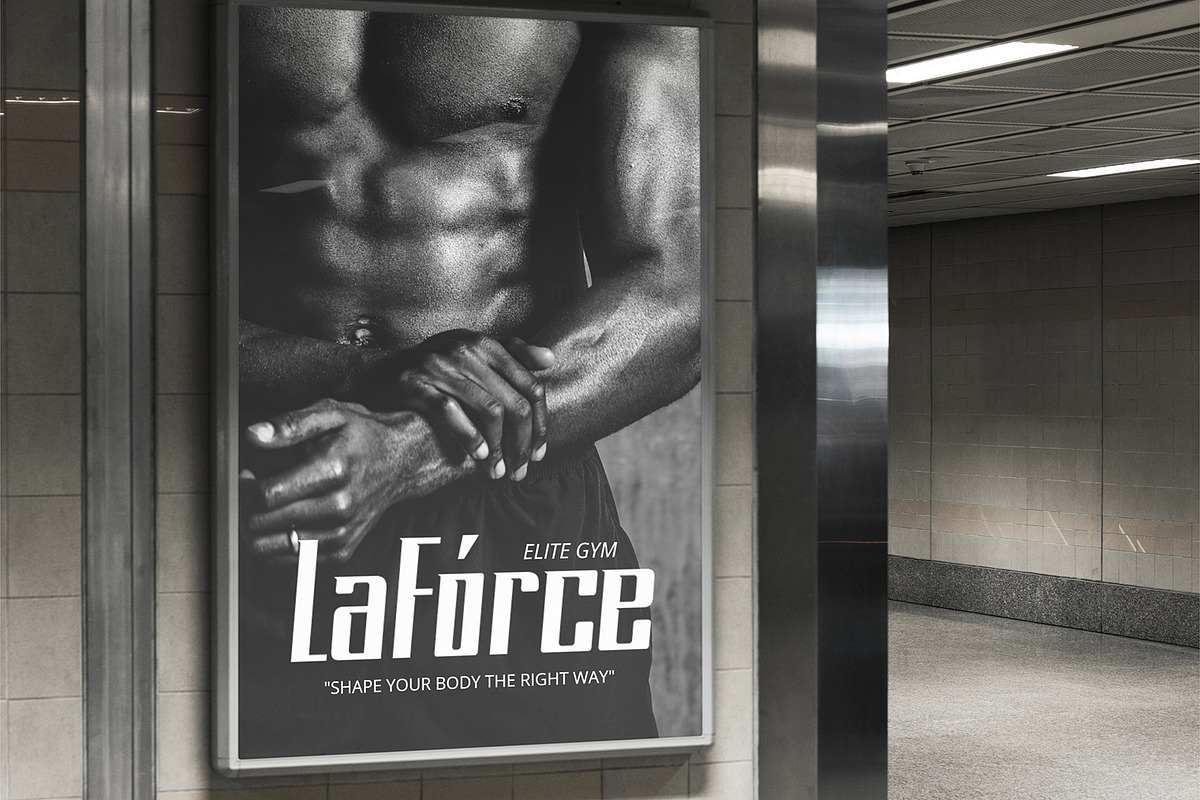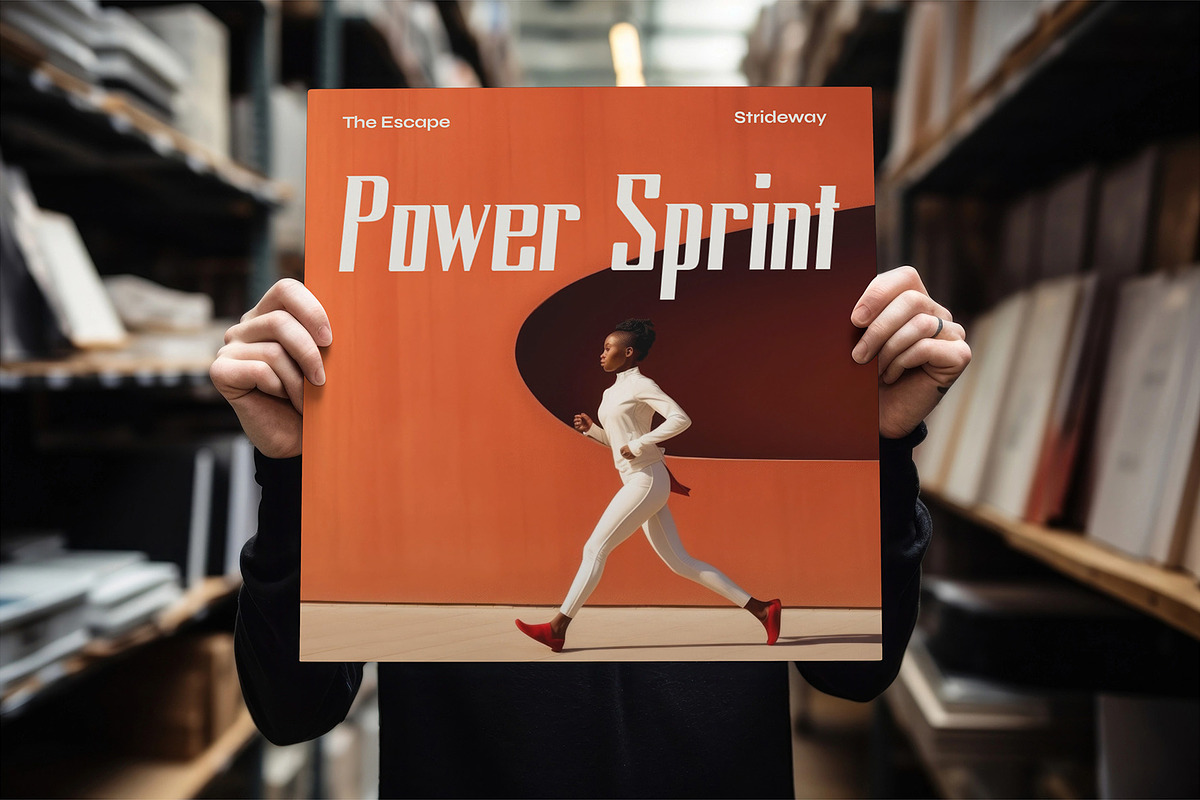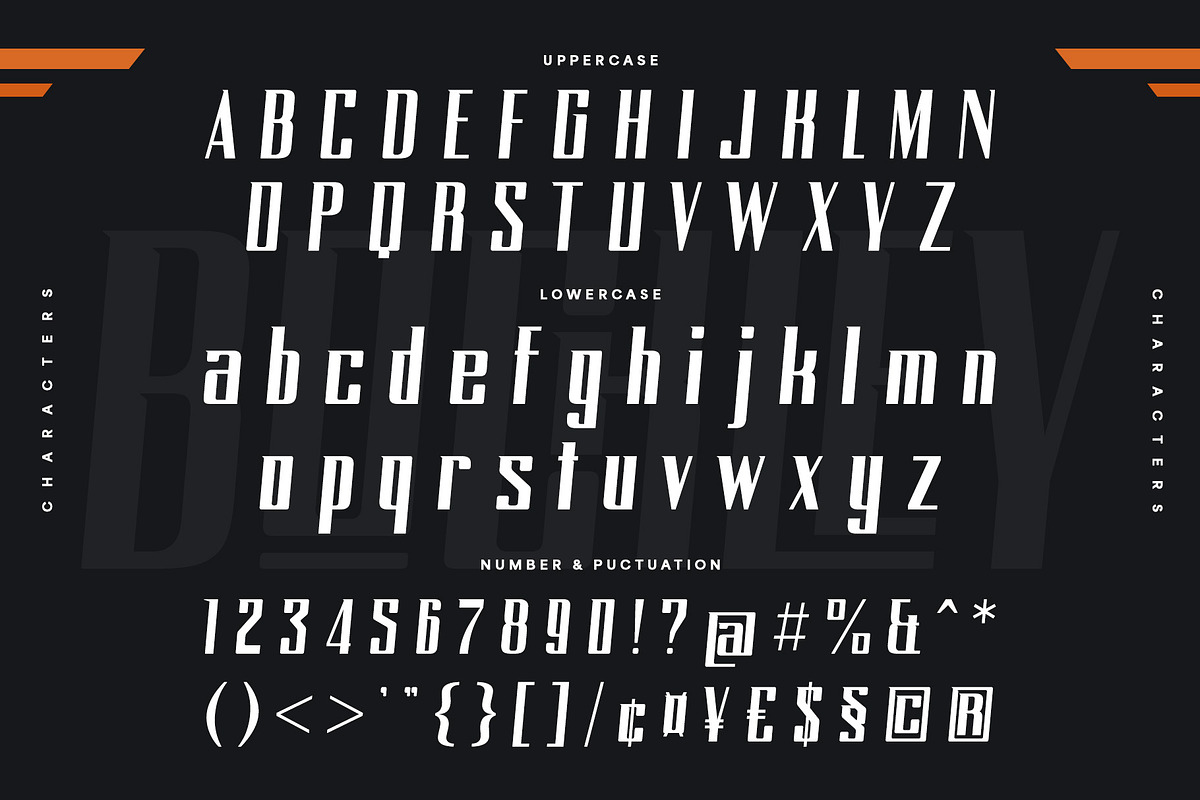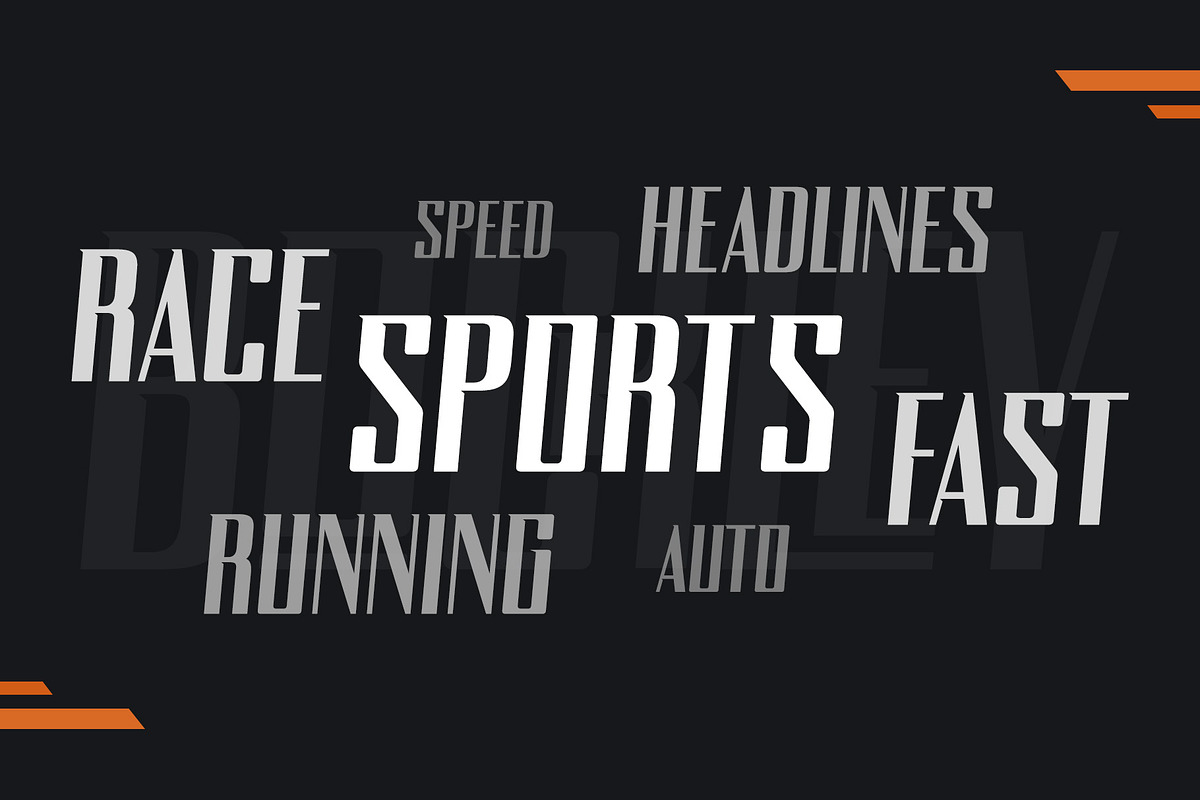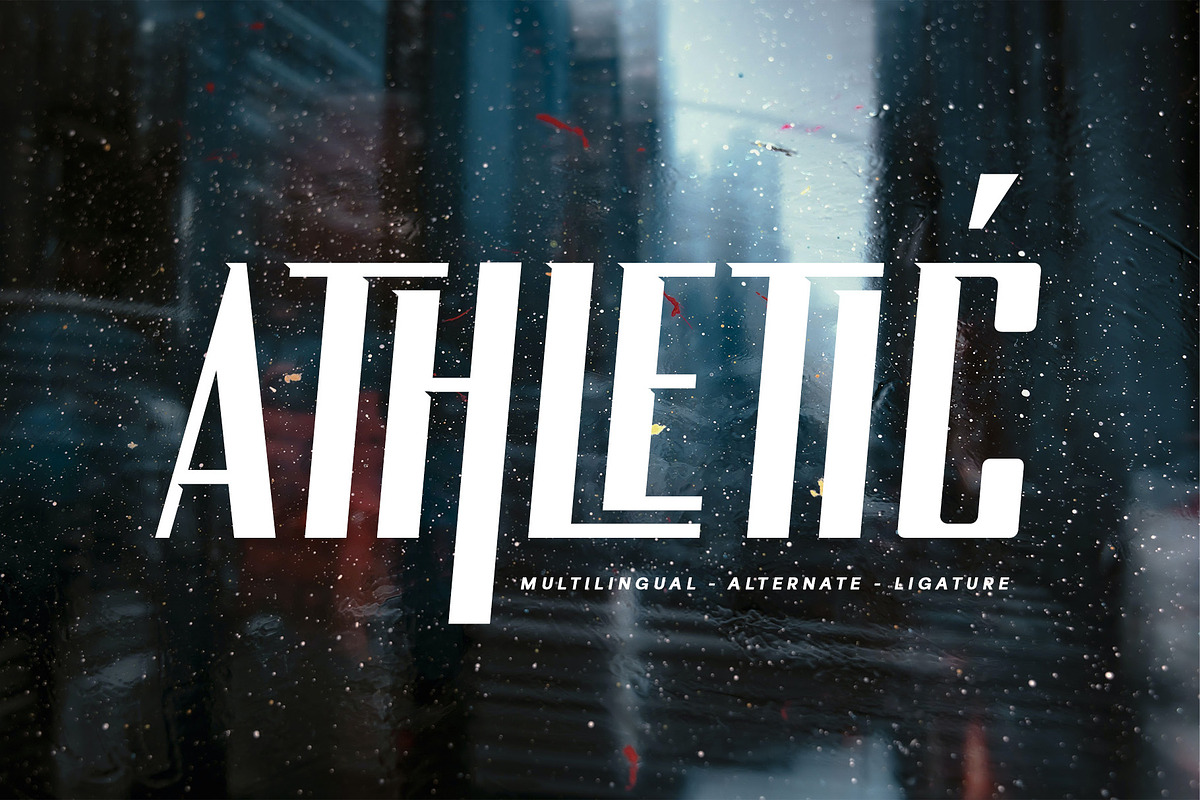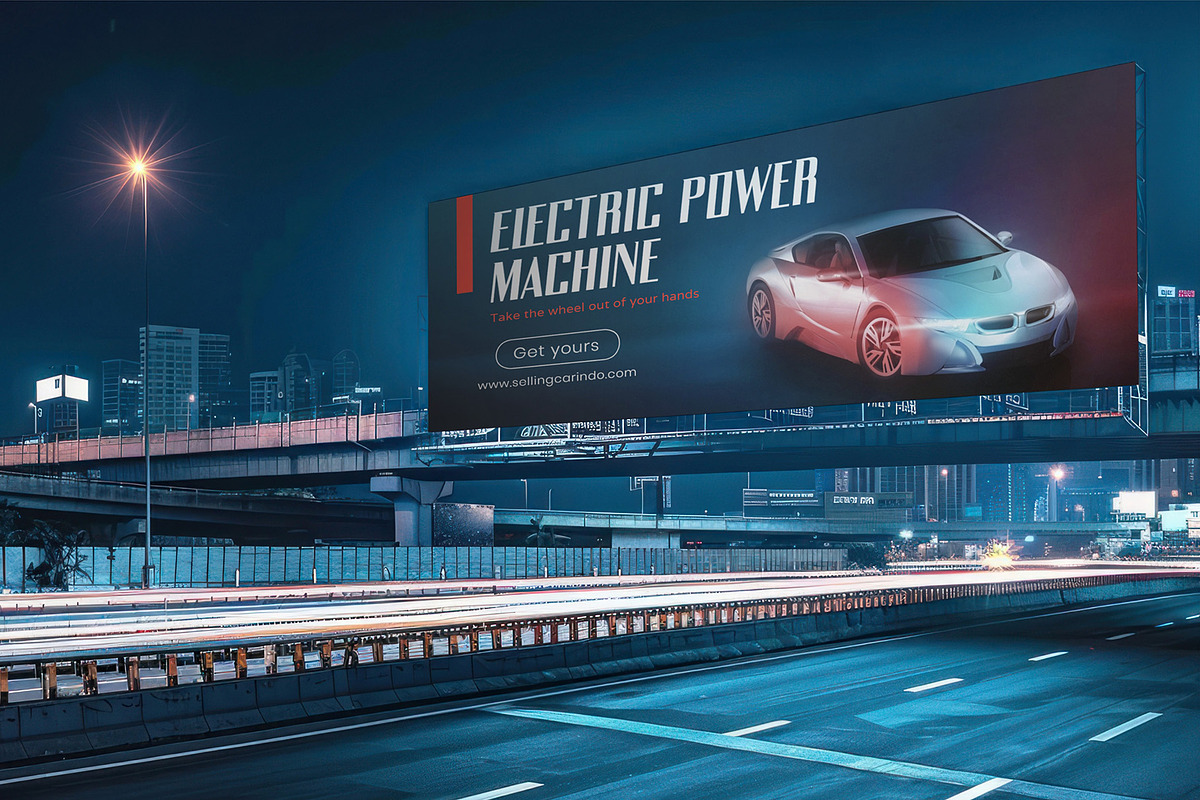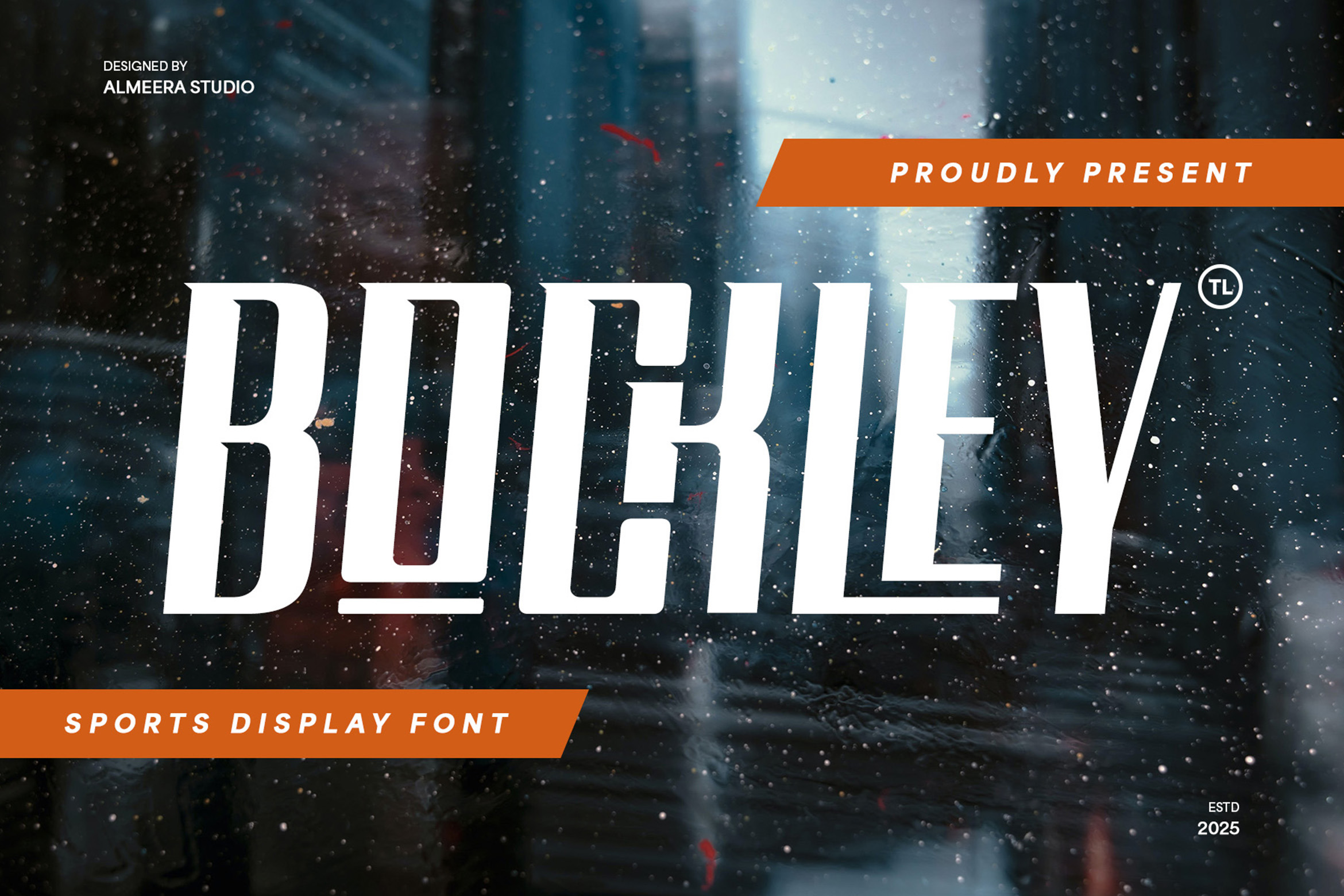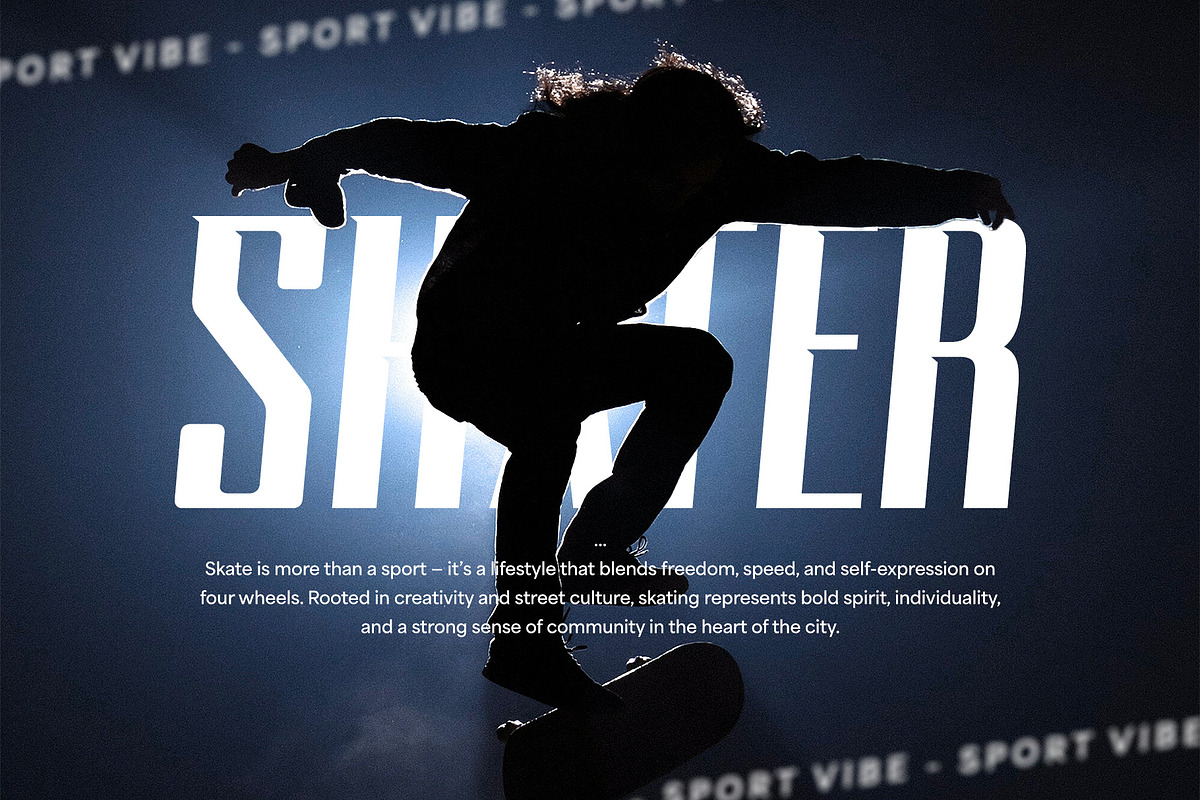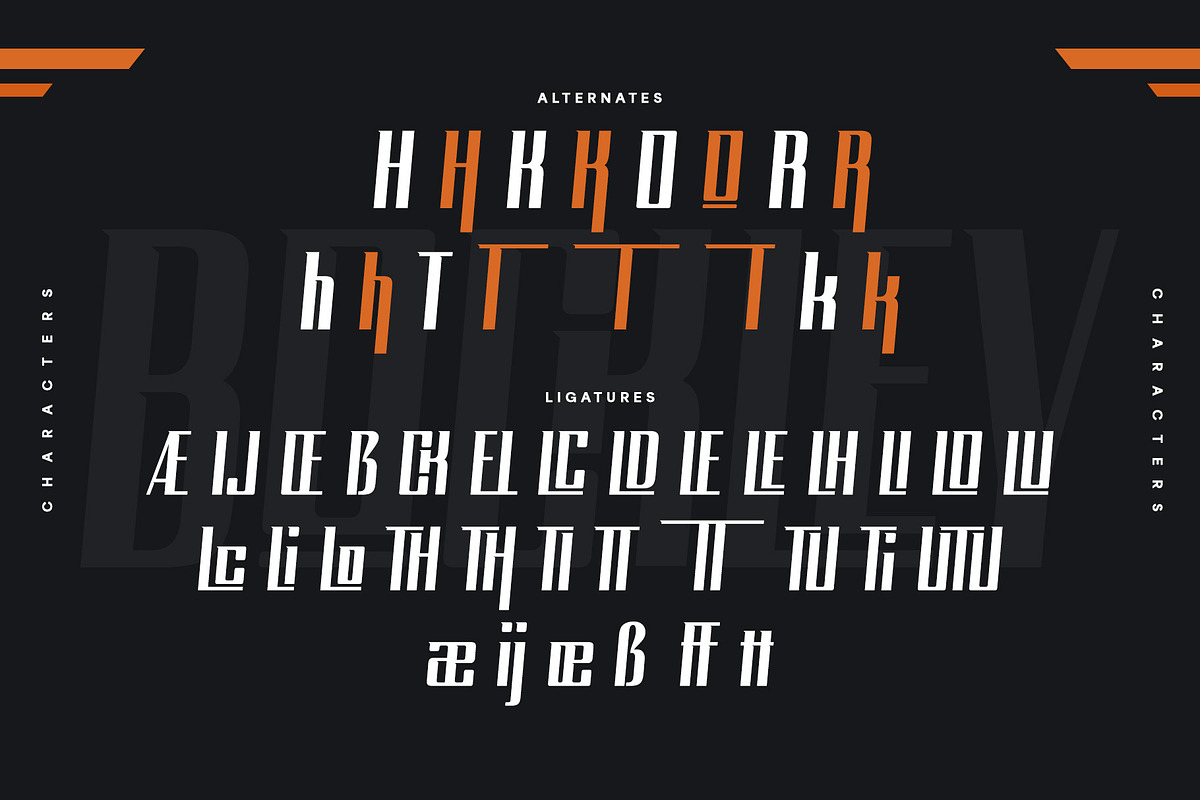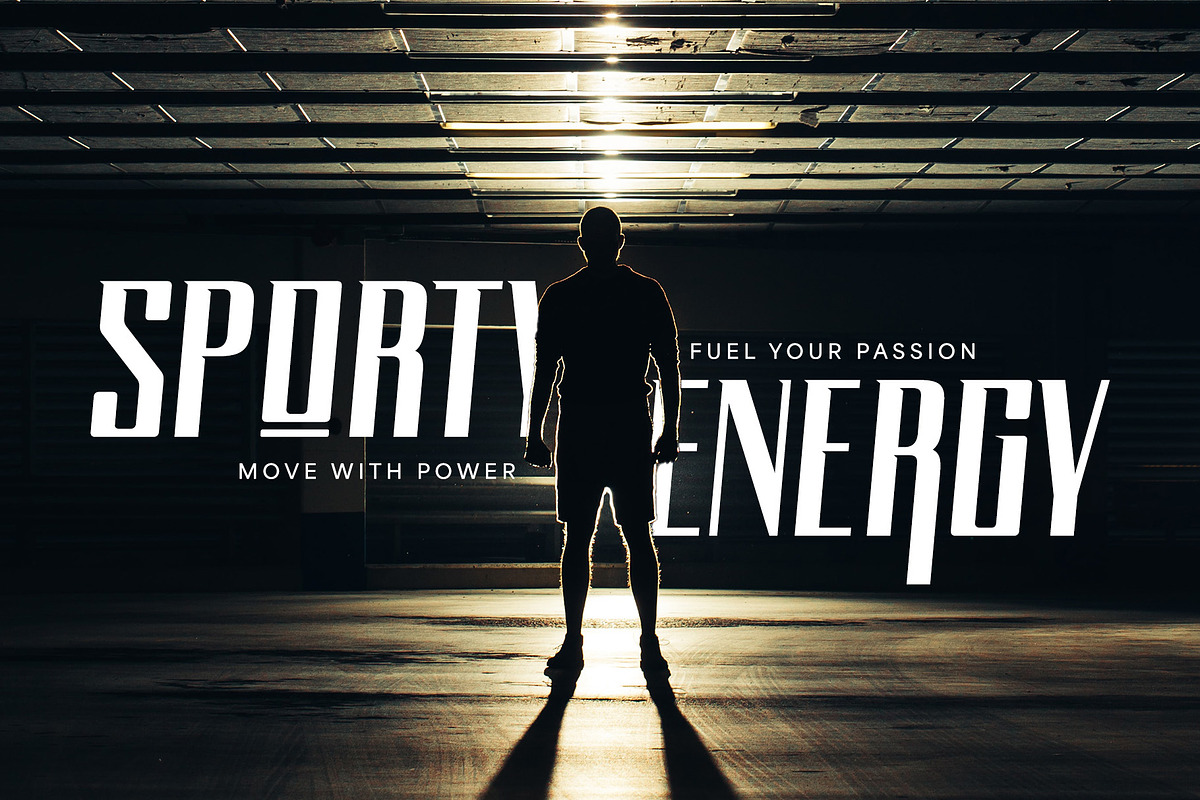
Bockley - Sports Display Font
Unleash the energy of Bockley, a dynamic sports display font designed to inject power and intensity into your projects. Perfect for athletic branding, team logos, sports, event posters, and gaming headlines, Bockley features strong, angular forms that exude speed and determination. Its bold presence ensures maximum impact and excellent readability, making it ideal for high-visibility applications. Whether you're crafting a captivating sports advertisement or an exciting e-sports title, Bockley brings a competitive edge to your typography. This modern, impactful typeface is a must-have for designers looking to convey strength, action, and undeniable force.